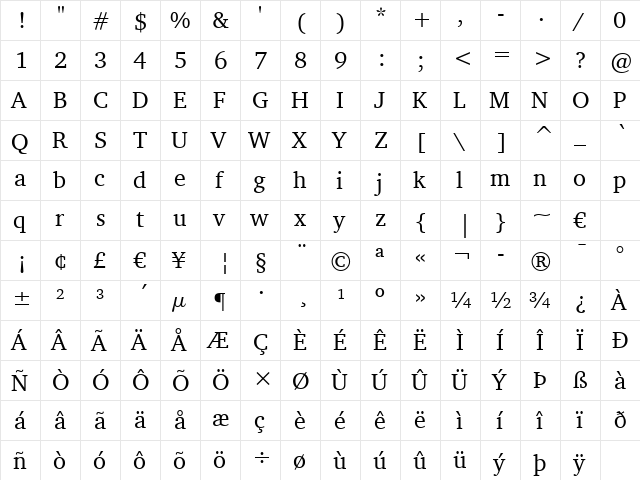
CharterITC BT Roman
Design Context for CharterITC BT Typeface
CharterITC BT takes a measured approach to typography — its balanced proportions and neutral character make it a reliable workhorse for both digital and print work.